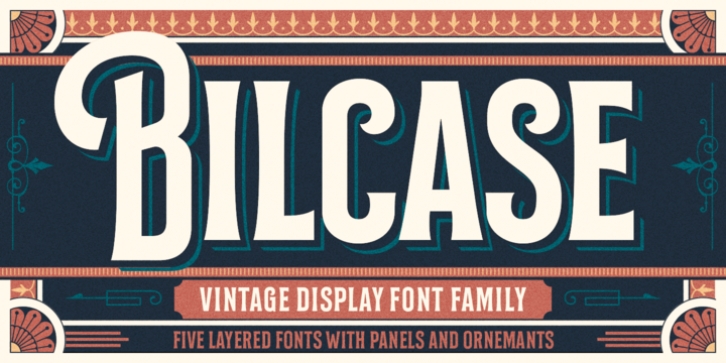
Bilcase was designed by Ilham Herry and published by Ilham Herry. Bilcase contains 6 styles and family package options.
The Bilcase font family is a layered condensed font family that comes from vintage logos, labels, packages, and signage. This collection of styles has 5 type layers and vintage scrolls, panels, and ornaments. Combine these to create label designs, headlines, logotypes, signage, posters, greeting cards, letterheads, T-shirts... the applications are endless.
This font family is available in 2 styles.
Bilcase has font layers with contextual, stylistic alternates and ligatures. You will get special capital letters when you activate the contextual alternate feature.
Bilcase Extras is the expanded version of the main font with panels, ribbons, and ornaments. You can access the ornaments by activating the ligature feature. Type the letter "p" for the panel, "r" for ribbon and "o" for ornament and add numbers to each code, e.g. "p1, p2, p11, r2, o2". Complete information is in the pdf file. http://bit.ly/2OClGjY . You can also try it in the font tester below.
· Bilcase Regular
· Bilcase Fill
· Bilcase Outline
· Bilcase Block
· Bilcase Shadow
· Bilcase Extras